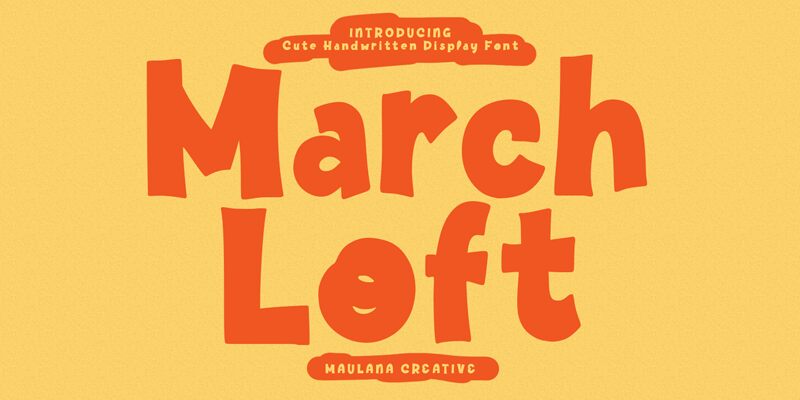
March Loft Free Font Regular
March Loft breathes life into every word with its whimsical charm and extra-bold persona, crafted masterly by Maulana Creative. This display font, with its cartoon style, injects fun and creativity into a variety of projects, from eye-catching branding to captivating children's books. Its distinctive curves and playful nature make it an instant attention-grabber, ensuring your designs not only speak but also spark imagination.
March Loft is the perfect typographic partner for those looking to infuse their work with personality and standout style.